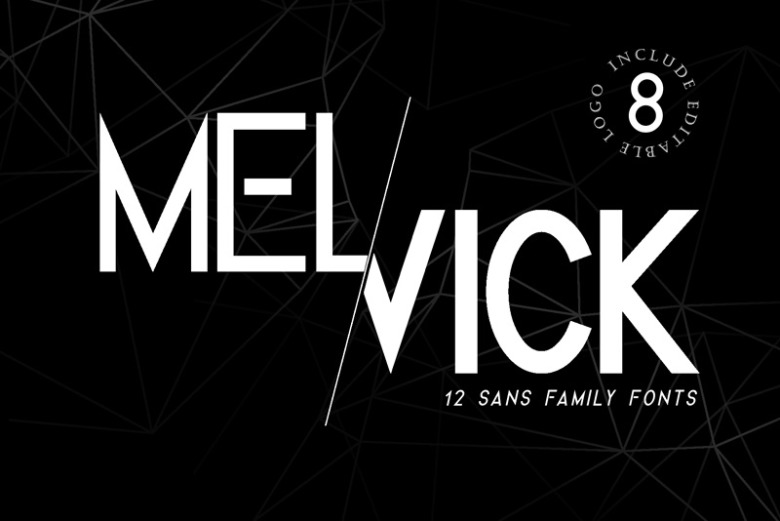
Melvick Font
The Melvick is a huge sans font family. Included are 12 fonts in 3 weights, all in caps with a solid and outlined style. It has clean, simple and strong characters which are perfect for displays, logos, branding, magazines, headers, t-shirts, printing, posters, advertisements, flyers and much more. Pair them with each other or use them as strong stand-alones!